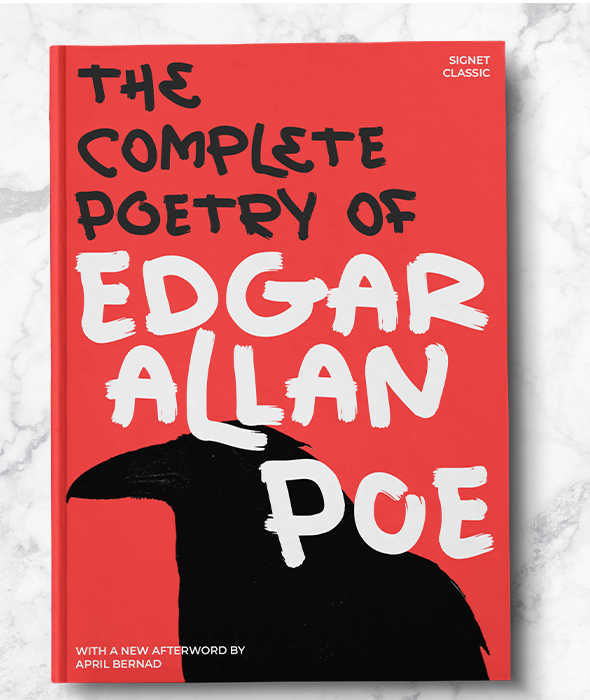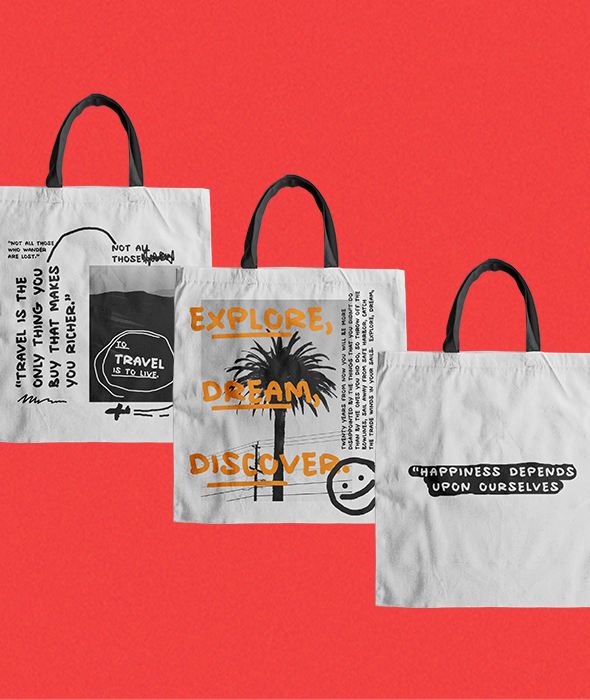
Left Hander is An Urban Brush Font, inspired by European mid century urban life, but still giving a trendy, futuristic and masculine character. Left hander’s design is based on the modernist movement that took place in the 1950s and 1960s, which was characterized by simplified geometric forms.
Left Hander contains a lot of alternates, to make it more useable in your design. Left hander also contains ligatures and some stylistic alternates for every character and has support for almost every language using Latin alphabet. it works best with uppercase letters and looks great when used in all caps.
Mixing between all the different characters of Left Hander will make your typography stand out of the crowd.